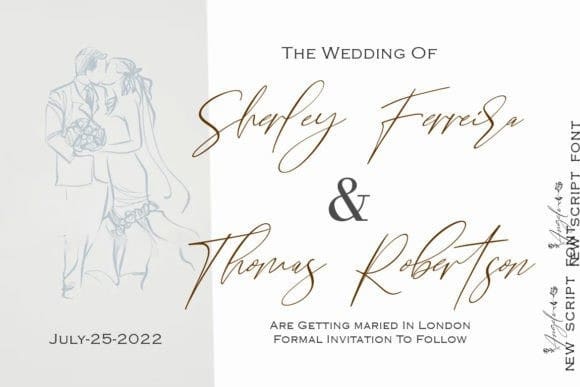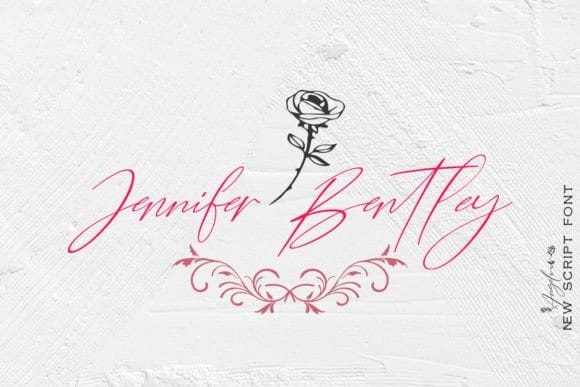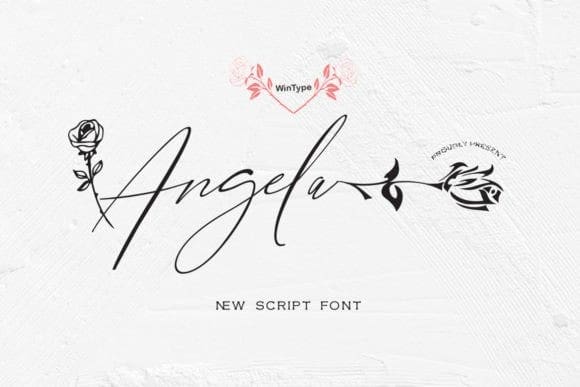
Angela Handwritten Font
Angela Handwritten Font, is a beautiful and modern signature script. It has a subtle style and will add a touch of class to your designs. This font is perfect for branding, photography, invitations, quotes, watermarks, advertisements, labels, and more!